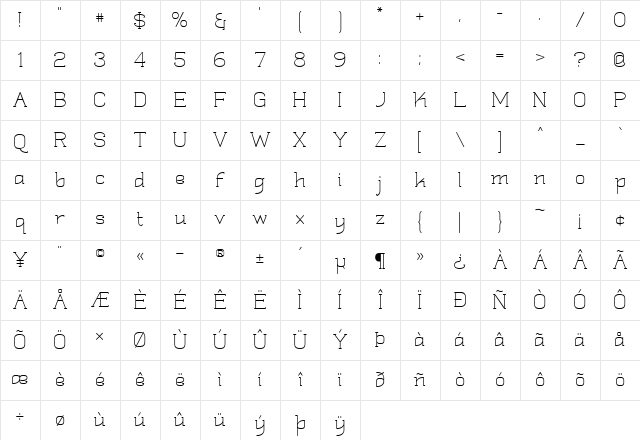
Quadlateral Regular Free Font
Quadlateral Regular
Foundry: Graham Meade
Design Context for Quadlateral
Quadlateral is a composed and adaptable typeface that performs quietly and consistently across a wide range of design contexts.